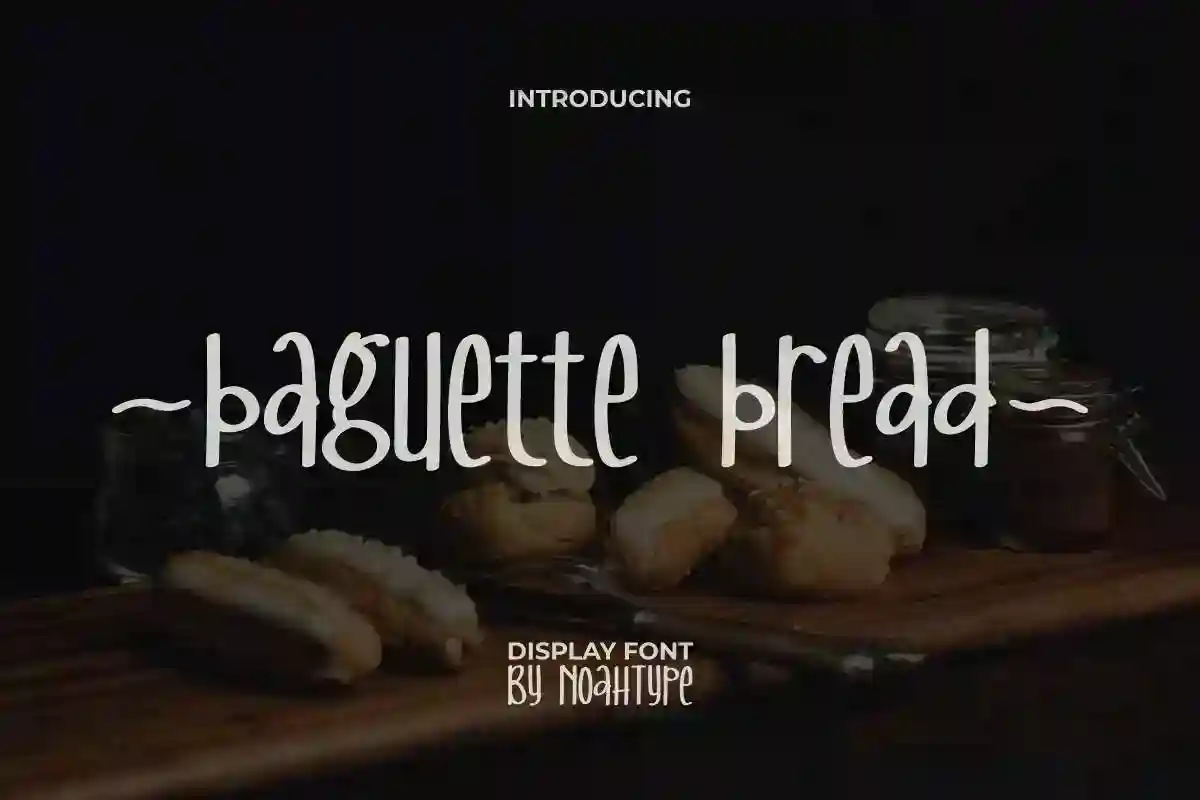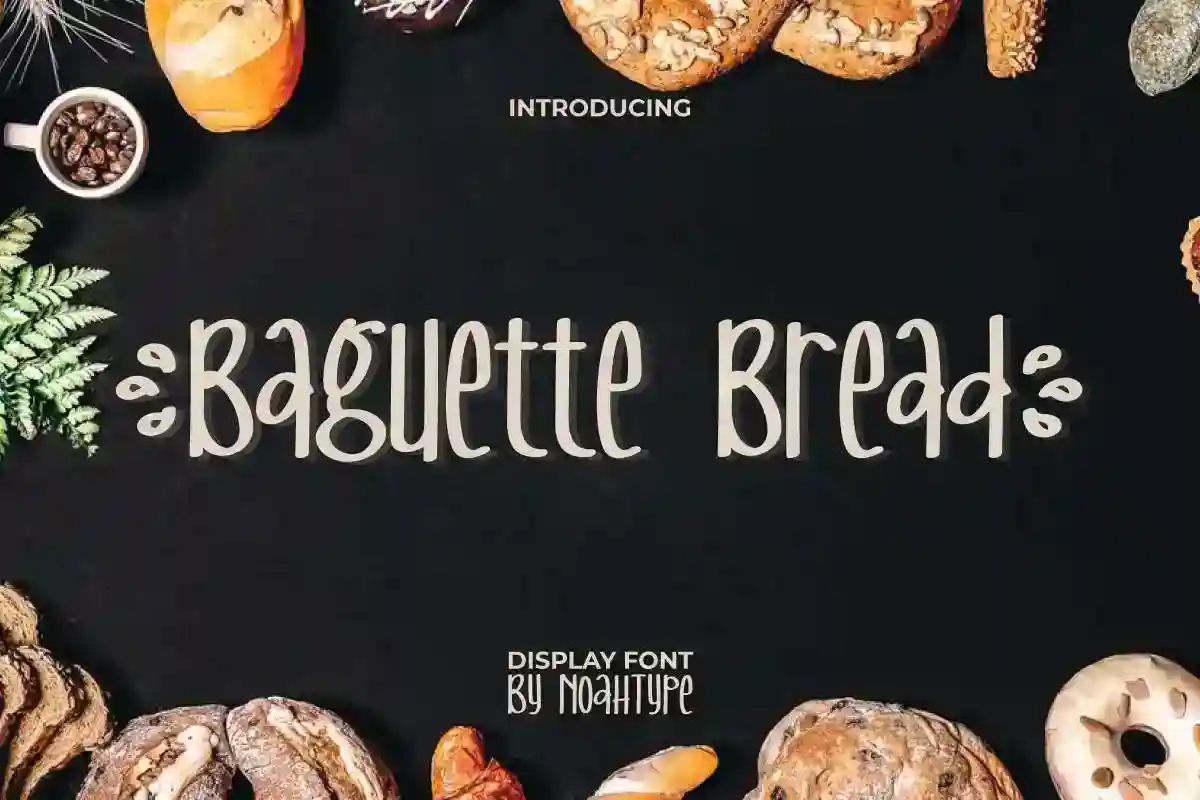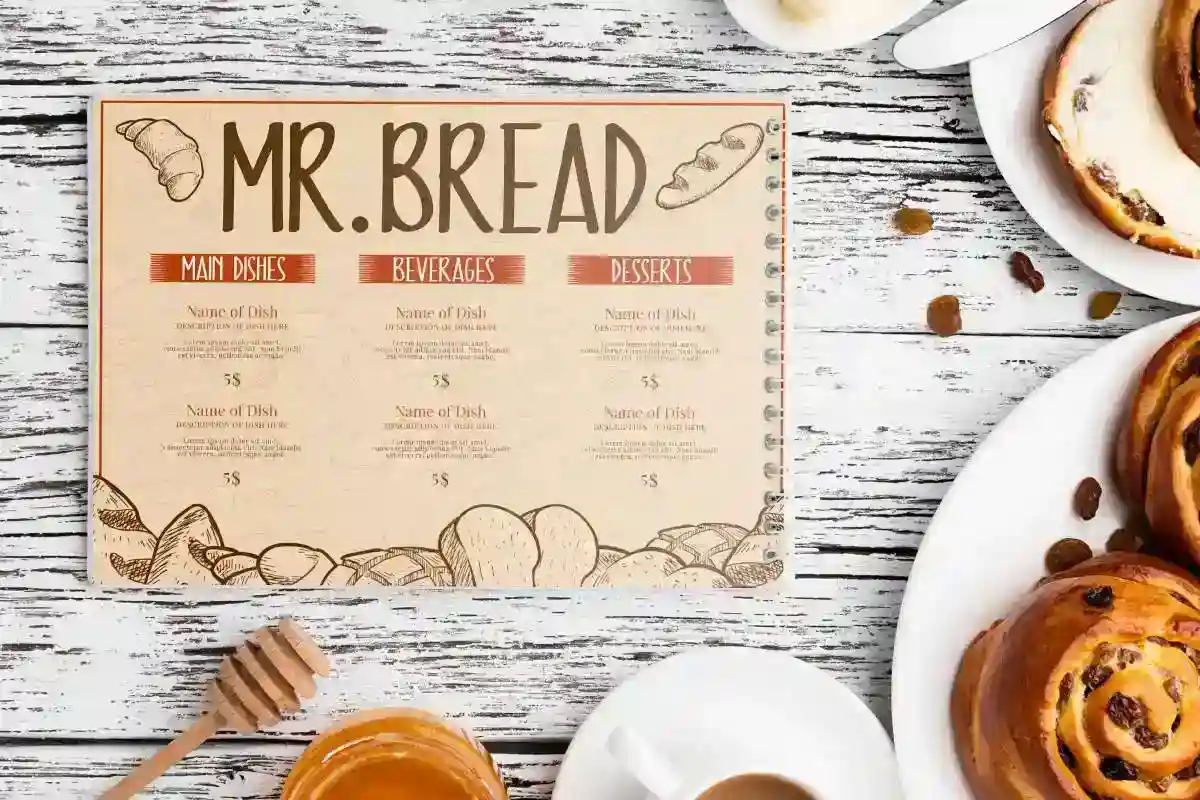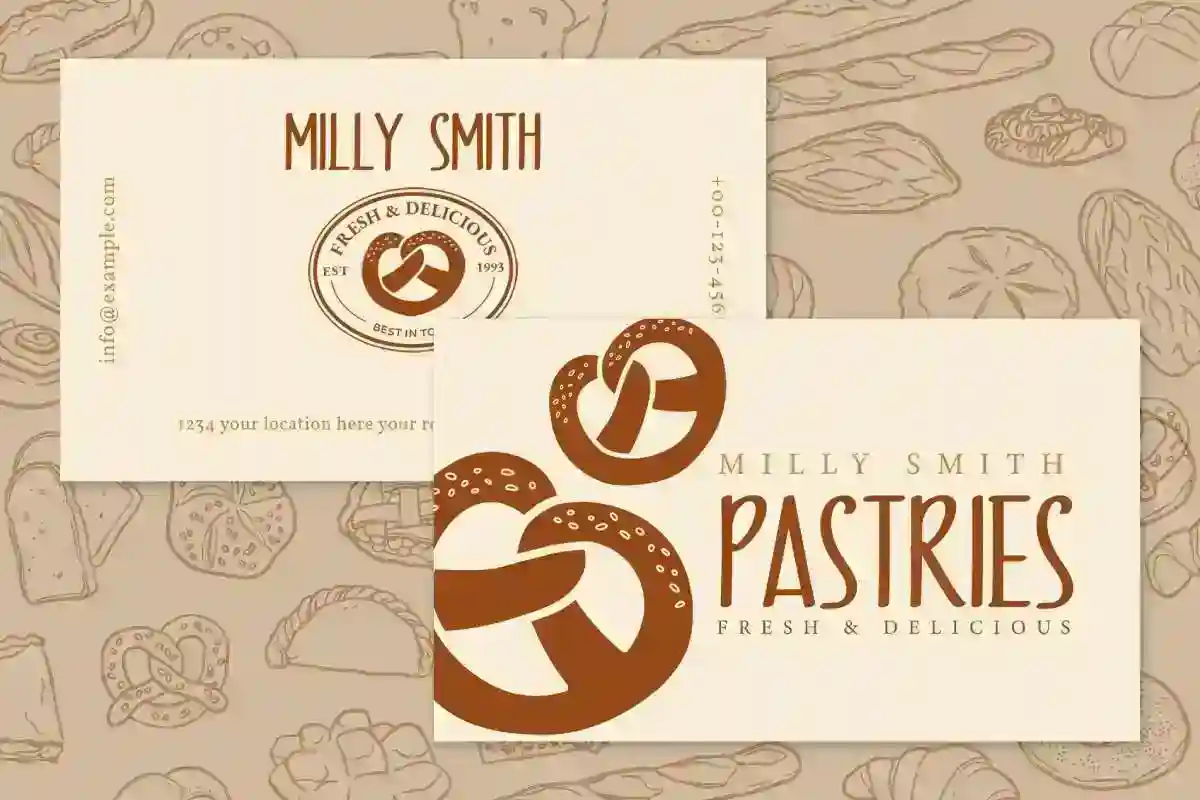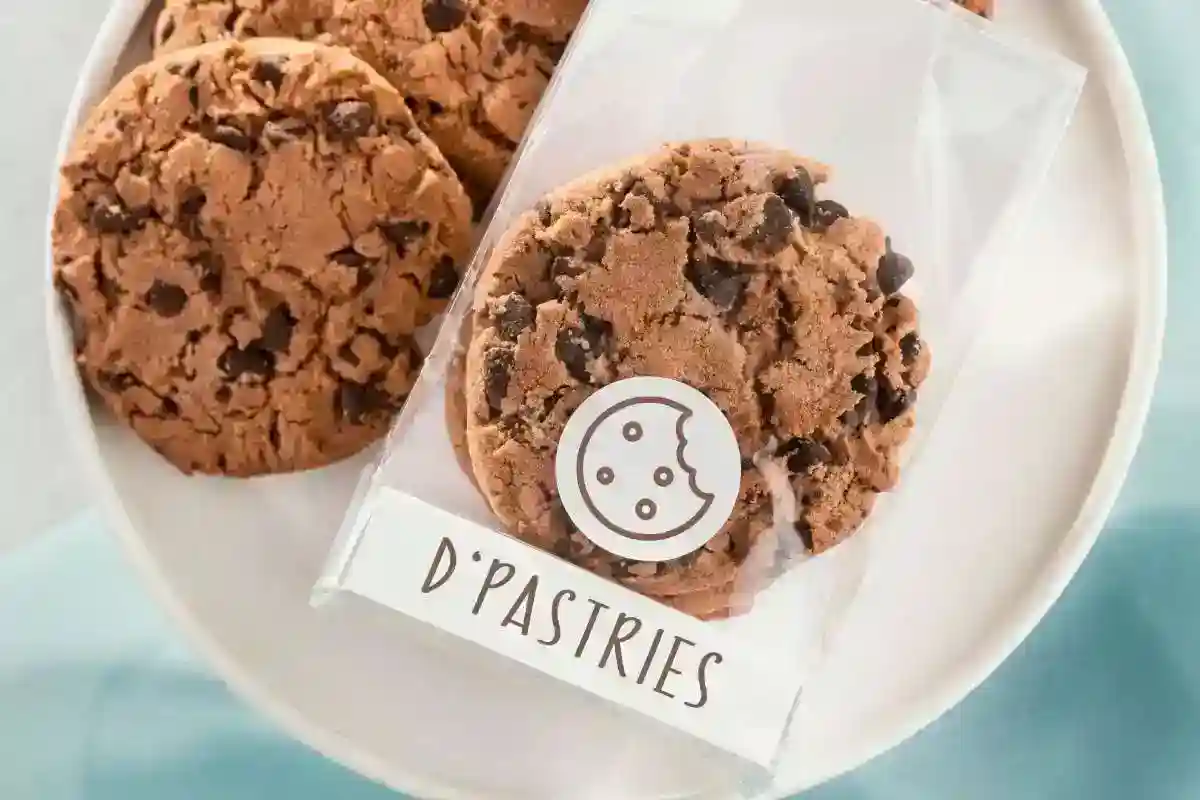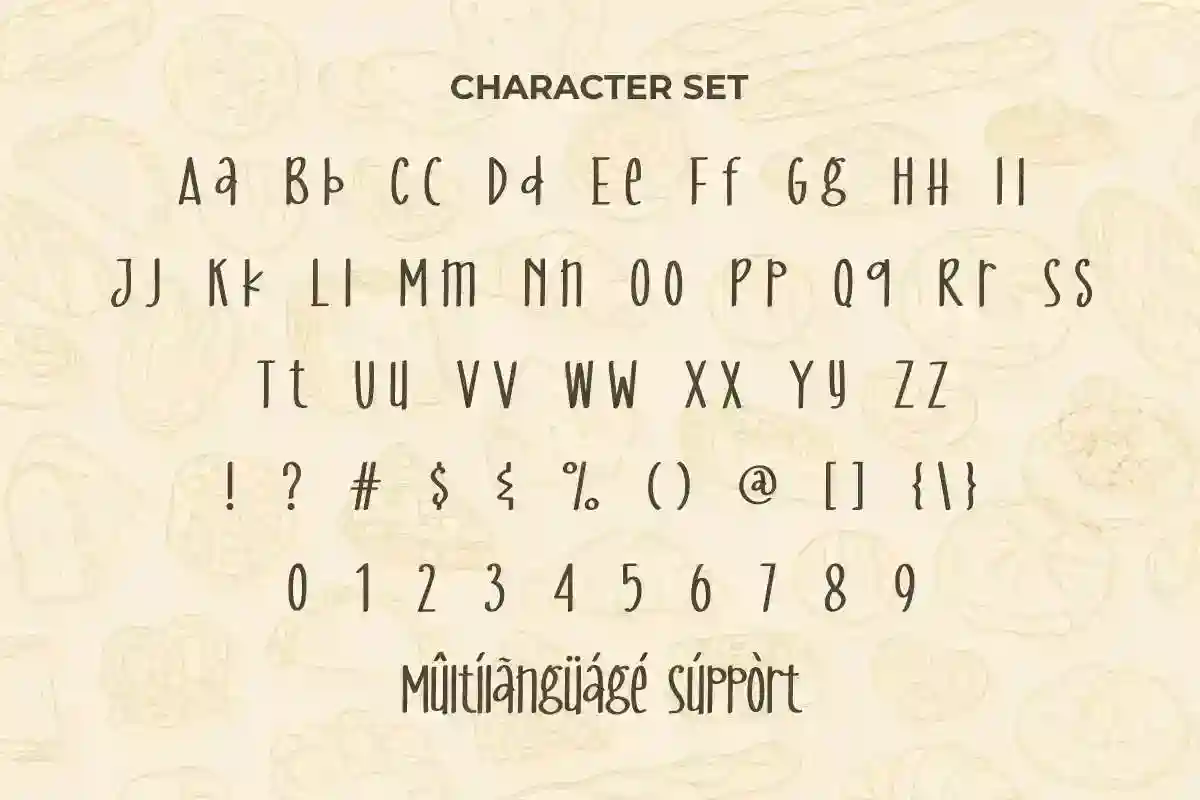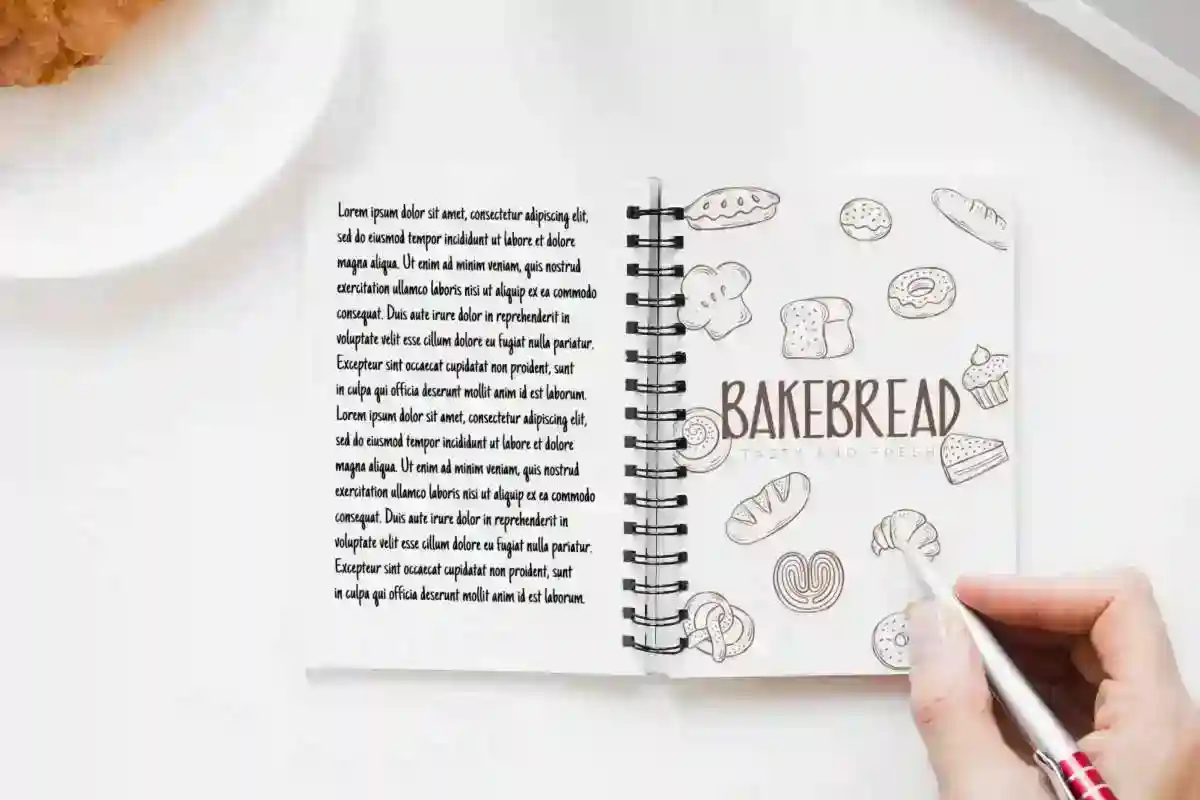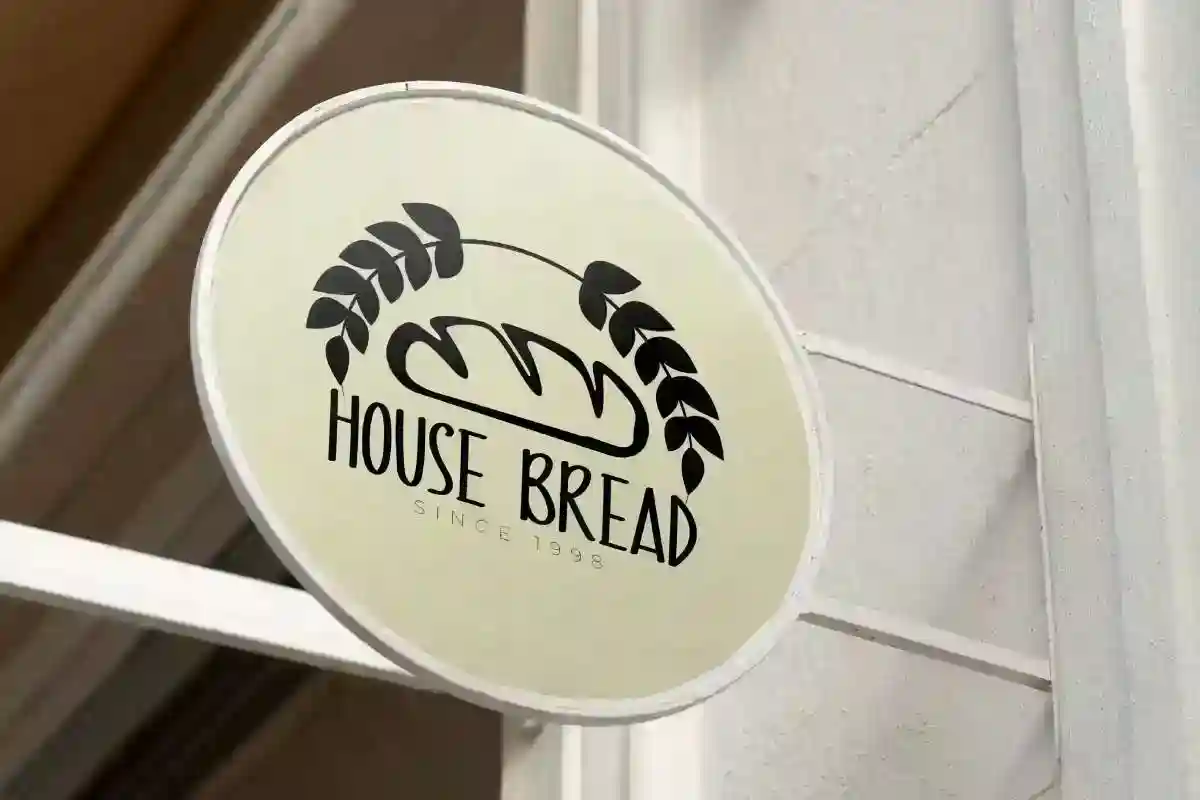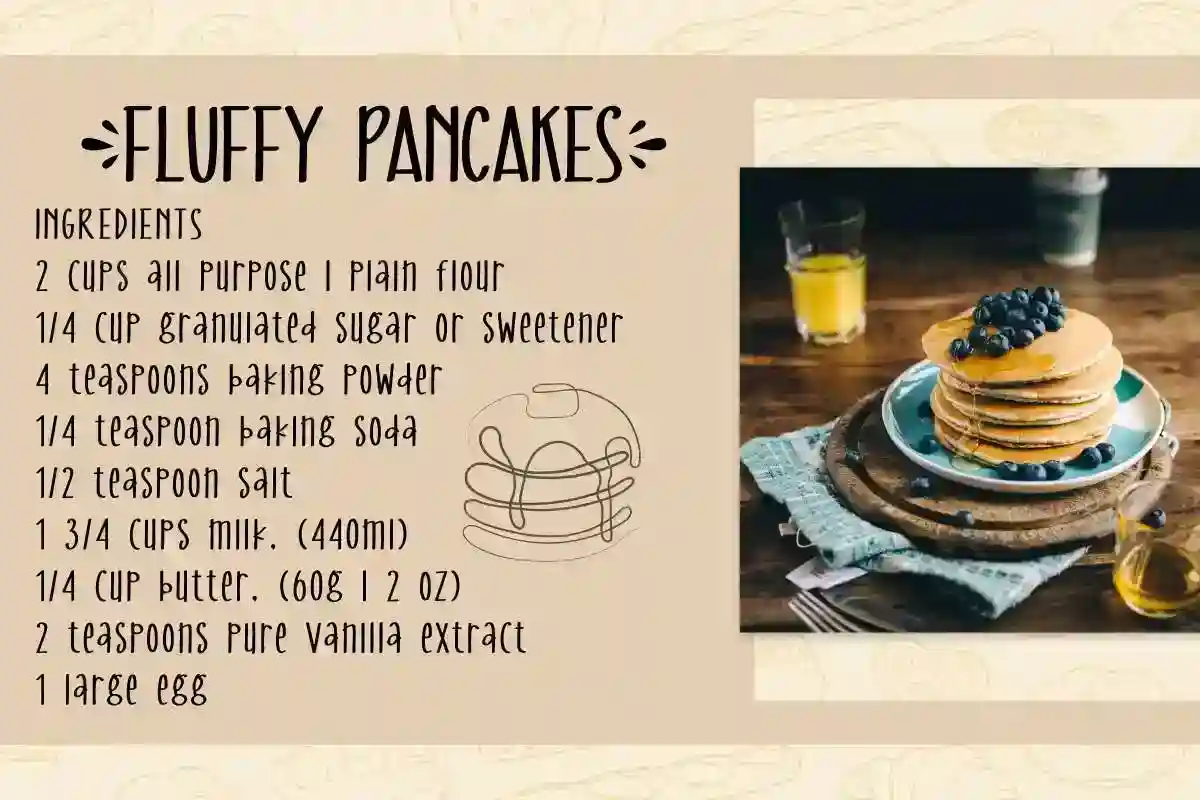
Baguette Bread Font is a foodies display font with unique delicious style. This font is inspired by baguette that is long and looks tall. This unique font is still easy to read and would be awesome for any business or industry such as: bakery and pastry, café, online cooking class, restaurant, and many more!
Baguette Bread Font includes full set of Uppercase and Lowercase Basic Characters, Numerals and Punctuation to create a stylish and sweeties look by adding more aesthetic and beautiful fonts to enhance your awesome projects. Baguette Bread Font would be perfect for your projects such as billboard, blog headers, branding logo, brochure, business card, label, menu, product packaging design, quote, recipe book, signage, title, etc.
Crafted with attention to detail, Baguette Bread Display Font offers smooth curves, playful shapes, and distinctive letterforms that stand out in any layout. Its versatility makes it suitable for logos, branding, poster headlines, merchandise designs, café menus, and even website headers.
When you use Baguette Bread, you’re not just adding text—you’re serving an aesthetic experience. The font’s bold yet friendly personality creates an inviting atmosphere, perfect for brands that want to connect with their audience through warmth and style.
Baguette Bread Font supports multilingual languages (including multiple currency symbols) with a simple installation, also have swoosh characters options that you can select and use to make it standout. The font will be ready to use both on Windows machine or Mac. It work well on Adobe software such as Illustrator, Photoshop and several other software.